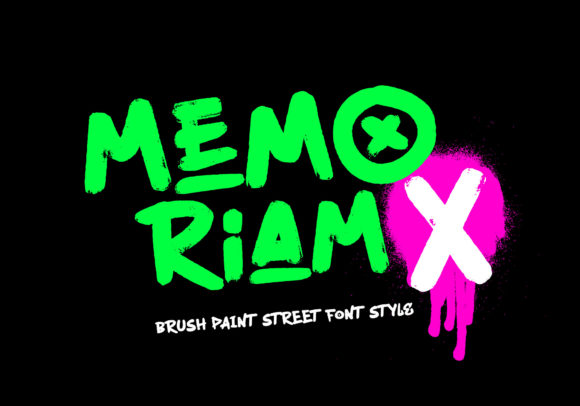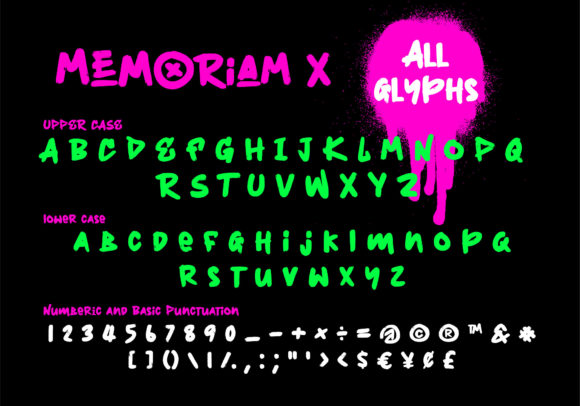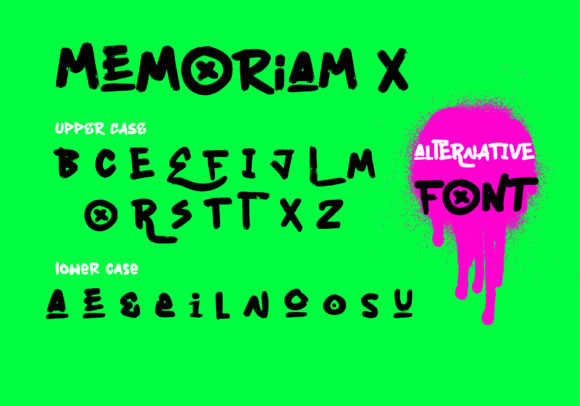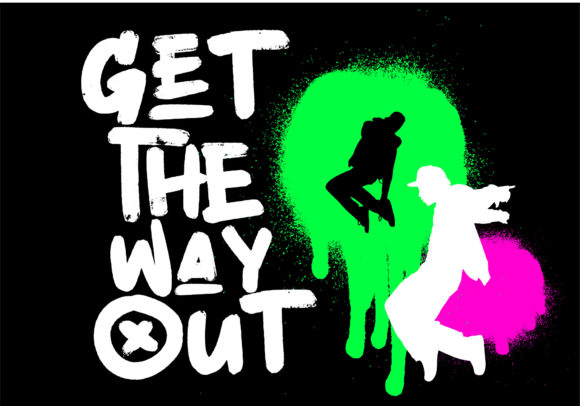
MemoriamX Font
About the MemoriamX Font
Get ready to be inspired by MemoriamX Font, a fresh and dynamic typeface for modern creators. MemoriamX is an awesome, graffiti-styled display font that has a street art vibe. This font is suitable for designs such as t-shirts, sportswear, logos, advertisements, clothing, and more. MemoriamX is PUA encoded which means you can access all of the glyphs and swashes with ease!
MemoriamX’s bold, rebellious personality makes it ideal for headlines, posters, and branding projects that demand attention. Its strong forms work exceptionally well in large sizes, conveying a powerful message. However, its highly stylized nature makes it unsuitable for body text or UI elements requiring high readability.
Consider pairing MemoriamX with a clean sans-serif like Montserrat for a balanced contrast—the sans-serif provides legibility for supporting text while MemoriamX delivers the impactful statement. Alternatively, a geometric sans-serif like Futura offers a modern, controlled counterpoint to the font’s raw energy.
Avoid using MemoriamX for projects requiring subtlety or elegance. It’s best suited for brands and projects with a youthful, energetic, and slightly edgy aesthetic; streetwear apparel, music promotion, or rebellious brands are excellent examples.